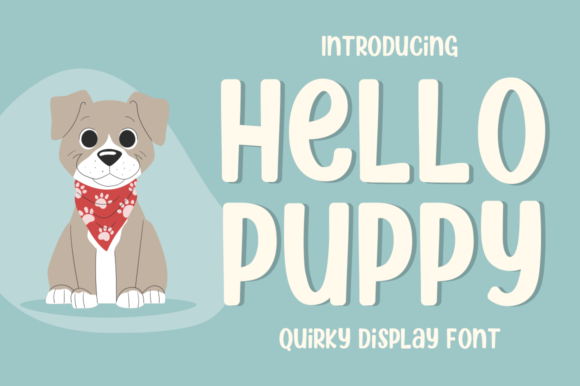
Dive into the world of Hello Puppy Font, a display font family that is the embodiment of trendsetting charm. This quirky font is designed to ignite your designs, whether it's for crafting, digital artistry, presentations, or greeting cards. Its unique character dances across your screen, captivating and enticing with every letter.
Hello Puppy Font is not just a font; it's a gateway to creativity, a vessel to unleash your artistry. With its extraordinary design, it breathes life into your words, transforming them into visual masterpieces. Unleash your inner artist and craft designs that pop, presentations that sizzle, and greeting cards that warm hearts.
Join the Hello Puppy Font revolution and watch your designs soar. It's the perfect font for cutting vinyl, adding an extra layer of flair to your crafting projects.